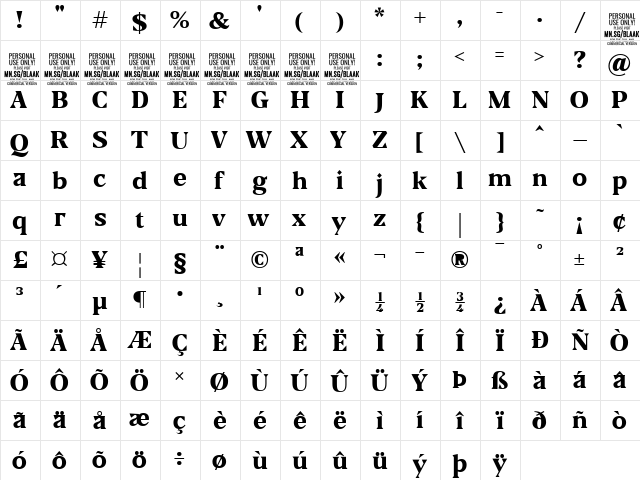
Blaak ExtraBold PERSONAL USE Regular
Design Context for Blaak ExtraBold PERSONAL USE Typeface
Blaak ExtraBold PERSONAL USE is a composed and adaptable typeface that performs quietly and consistently across a wide range of design contexts. Its bold stroke weight gives it real presence on the page.